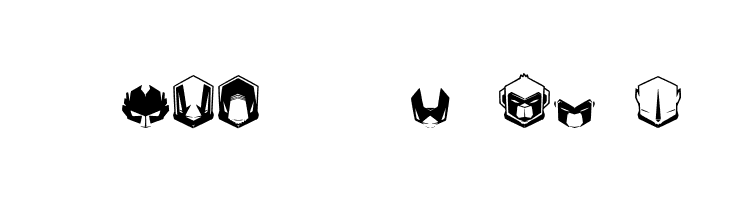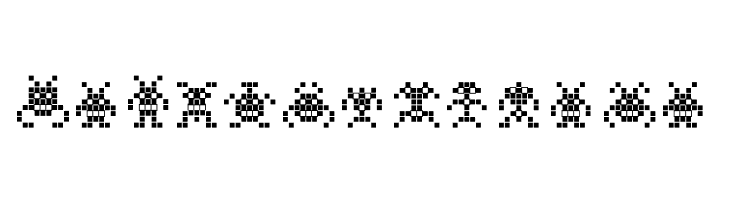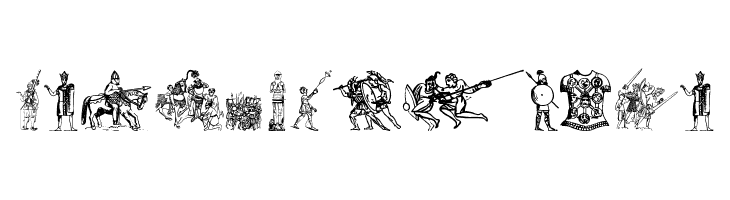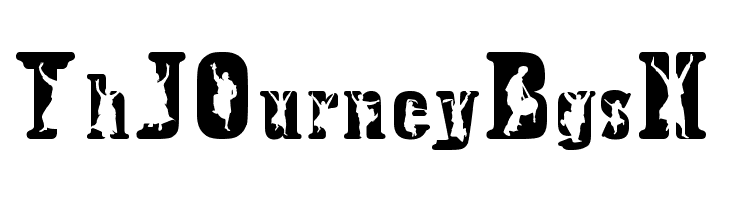
Silhouette-based display font featuring sports and athletic figures.
A set of bold, geometric helmet icons with a modern, futuristic style.
A pixelated, soldier-themed font with a retro gaming aesthetic.
A decorative font with detailed illustrations of ancient warriors and weapons.